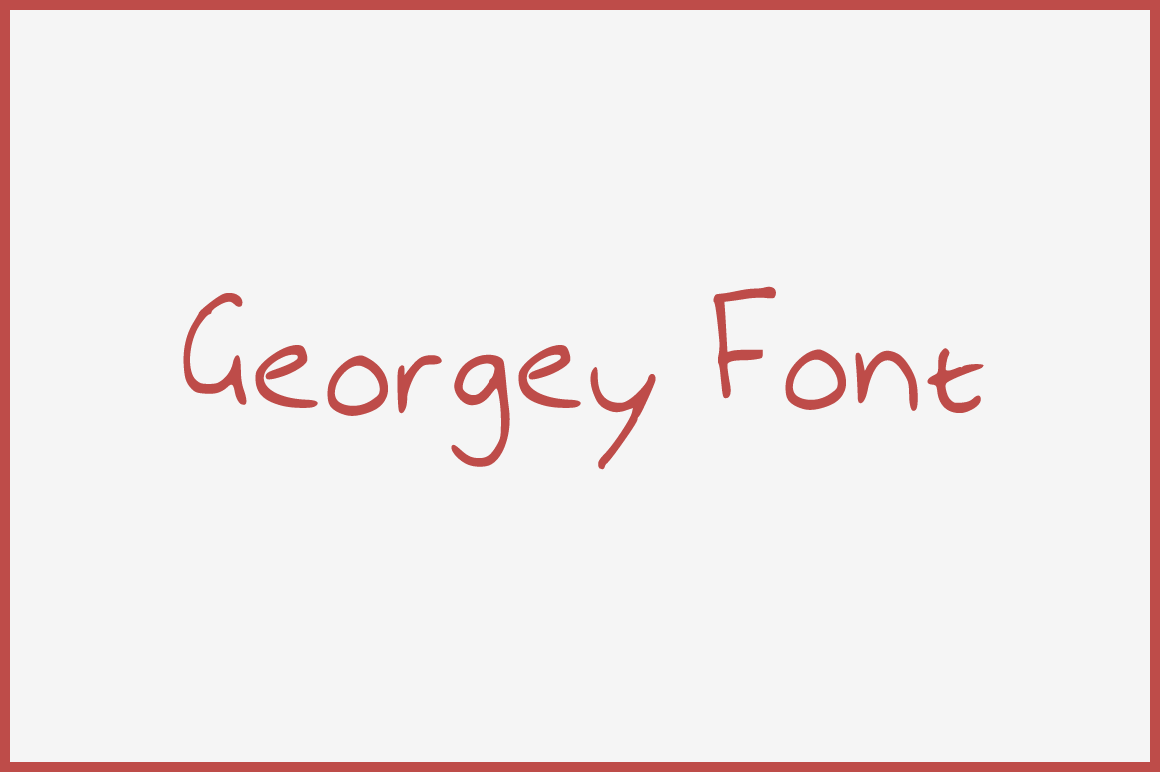
Georgey Font
Handwritten font. Uppercase, lowercase, numbers and basic punctuation. single weight .ttf file May require manual adjustment for more accurate spacing/ alignment of characters.